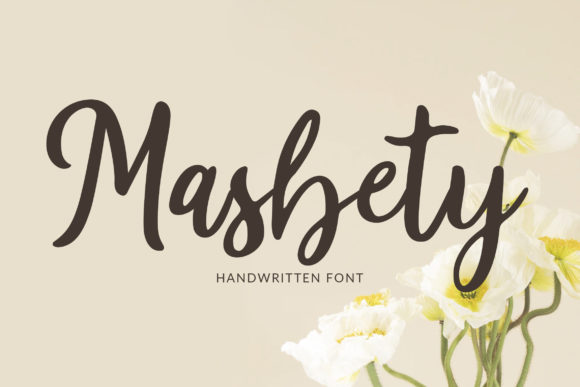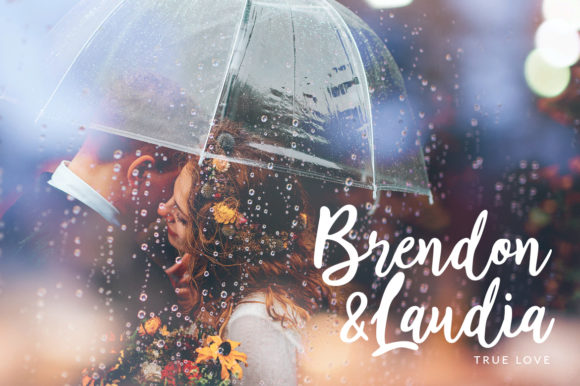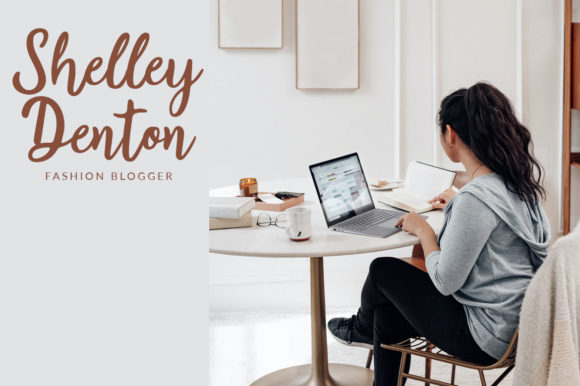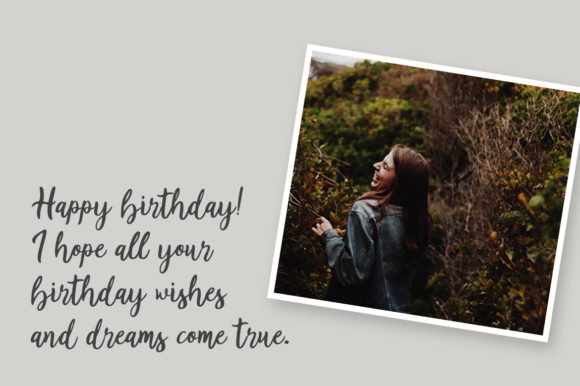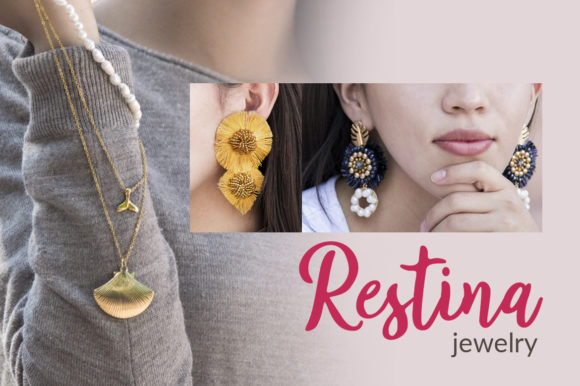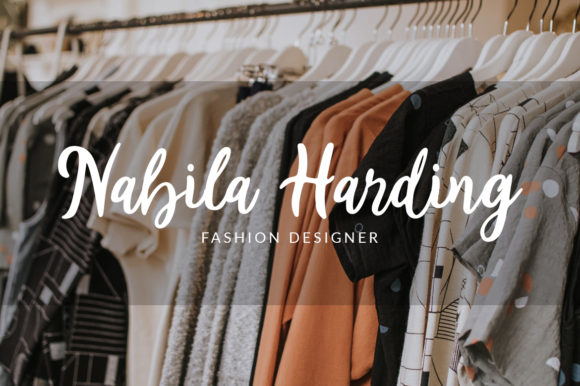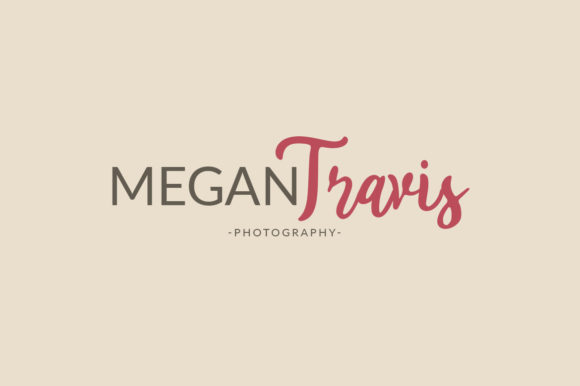
Masbety Font
About Masbety Font
Masbety is a sweet handwritten font, with classic calligraphy influences. It looks stunning on wedding invitations, thank you cards, quotes, greeting cards, logos, business cards and every other design which needs a handwritten touch.